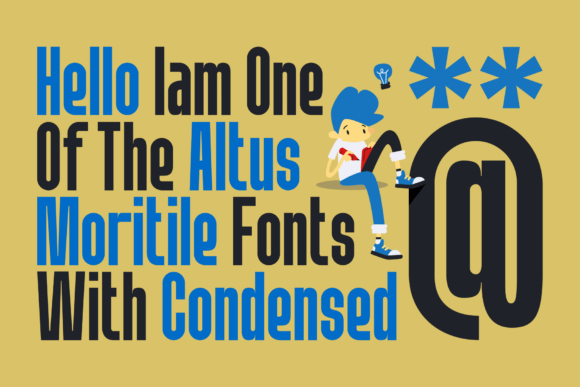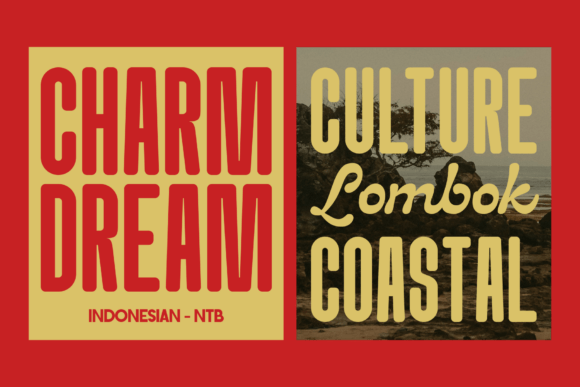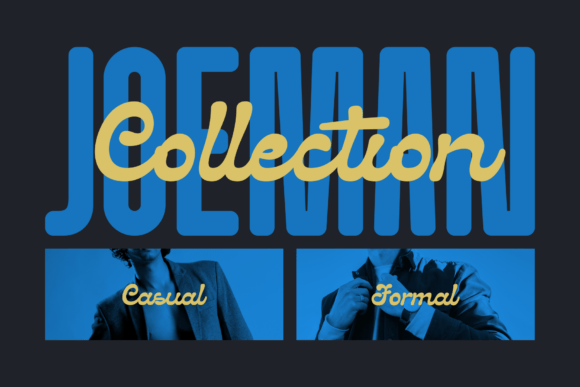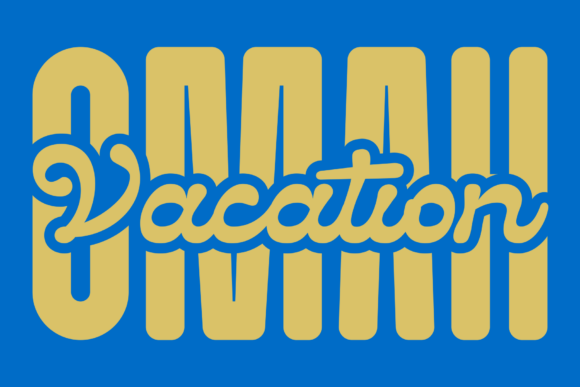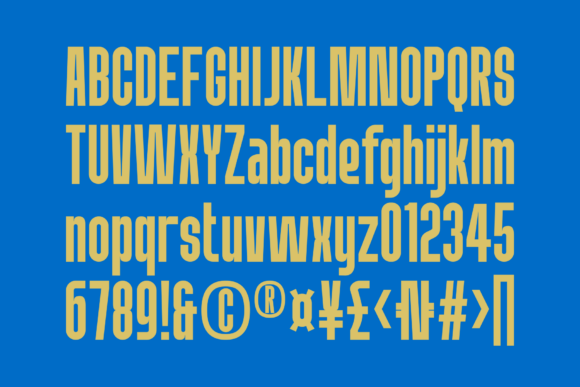
The Designer’s Dream Come True: Altus Moritile Font
I’ll never forget the frustration of working on a project, pouring my heart and soul into it, only to be held back by a lack of the perfect font. I was on a tight deadline, and my client wanted a bold, eye-catching headline that would make their brand stand out. That’s when I stumbled upon the **Altus Moritile** font family. It was love at first sight! With its bold, retro-inspired design and condensed strength, it was exactly what I needed to elevate my project.
A Closer Look: What Makes Altus Moritile Special
The **Altus Moritile** font family is a versatile and harmonious system that consists of three cohesive styles: Regular, Rounded, and Script. Each style offers a unique personality, but they all share a common thread – a bold, condensed design that’s perfect for headlines, branding, and accent typography.
The Three Styles of Altus Moritile
- Regular Style: This style features tall, condensed letterforms with solid stroke weight and confident vertical proportions. It’s ideal for creating a strong, structured, and impactful presence.
- Rounded Style: This style maintains the same condensed foundation as the Regular style but softens the corners and terminals, creating a warmer, friendlier, and more approachable tone.
- Script Style: This style introduces flowing cursive forms with smooth curves and subtle stroke modulation, adding a handcrafted, vintage charm to your designs.
- ✨ Versatility: The Altus Moritile font family offers three unique styles that can be used together to create a cohesive brand identity.
- ✅ Legibility: The bold, condensed design makes it perfect for headlines and branding, even at smaller font sizes.
- 💥 Expressive Elegance: The Script style adds a touch of elegance and sophistication to any design.
While the Altus Moritile font family is incredibly versatile, there are a few things to keep in mind:
- ⚠️ Limited Use in Body Text: Due to its condensed design, the Altus Moritile font family may not be the best choice for body text, especially at smaller font sizes.
- 🤔 Glyph Limitations: While the font family has a wide range of glyphs, some users may find that it lacks certain special characters.
The Altus Moritile font family was designed with the goal of creating a versatile and harmonious system that combines boldness, warmth, and elegance. The designer drew inspiration from classic retro fonts, but with a modern twist. The result is a font family that’s perfect for designers, crafters, and creative hobbyists who want to add a touch of sophistication to their designs.
| Font Name | Altus Moritile Font |
| Author | Marvadesign |
| What is the Altus Moritile font family? | The Altus Moritile font family is a bold, retro-inspired display typeface family that combines condensed strength with expressive elegance. |
| What are the different styles of Altus Moritile? | The Altus Moritile font family consists of three cohesive styles: Regular, Rounded, and Script. |
| Can I use Altus Moritile for body text? | While the Altus Moritile font family is perfect for headlines and branding, it may not be the best choice for body text, especially at smaller font sizes. |